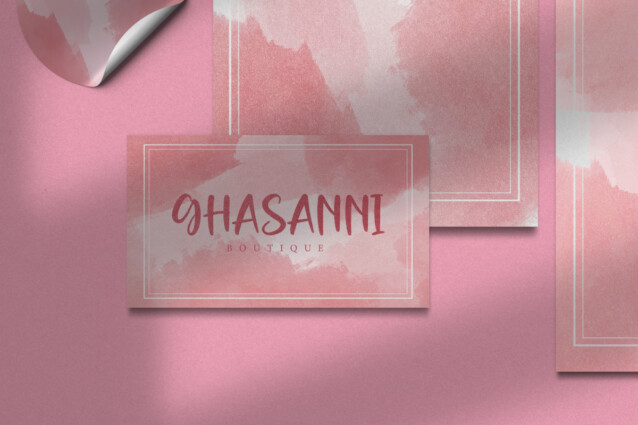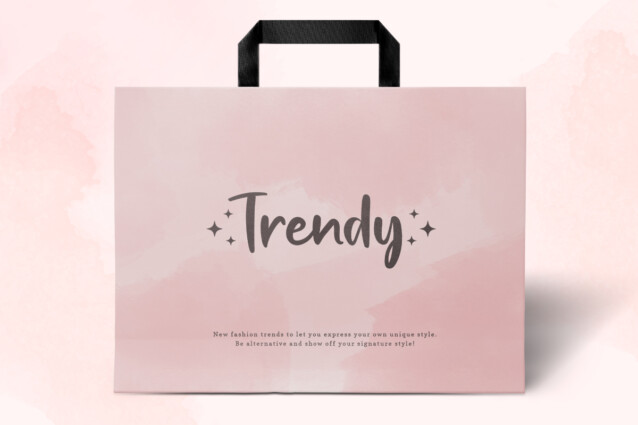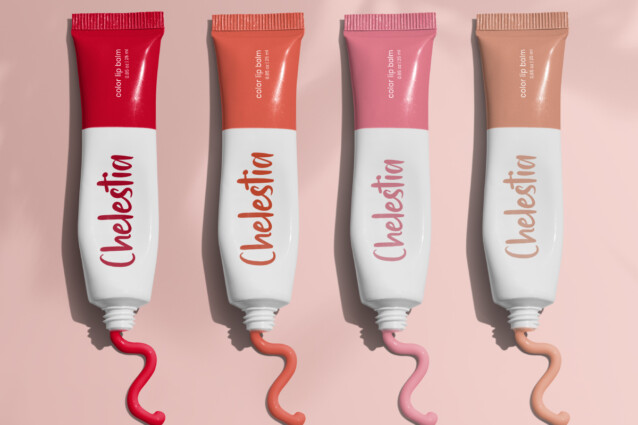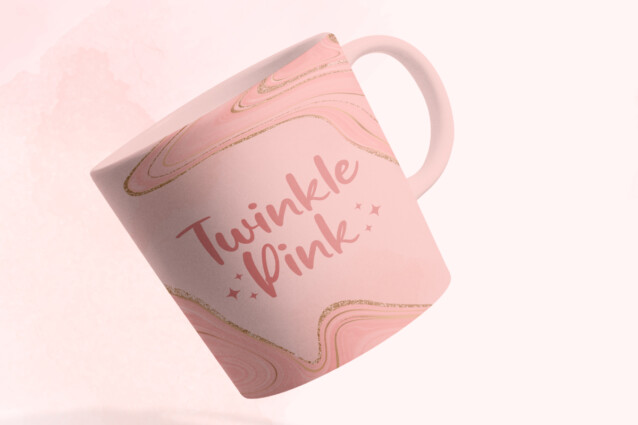
Twinkle Pink Font
Twinkle Pink Font is a fun yet modern stylish script font with handwriting style, created by VinType Studio. This handwritten font has the right letter thickness so it can be read clearly. This font will be suitable for many industries, such as advertisement, beauty product, event or wedding organizer, fashion, florist, handicrafts, homeware, printing, publishing, spa and salon, and more!
Twinkle Pink Font includes full set of Uppercase and Lowercase Basic Characters, Numerals and Punctuation, and Swoosh. The charm that this font has will make you want to use it in various types of designs, such as brand logo, brochure, business card, custom design, label, packaging design, poster, quote, screen printing, stationery, website, etc.